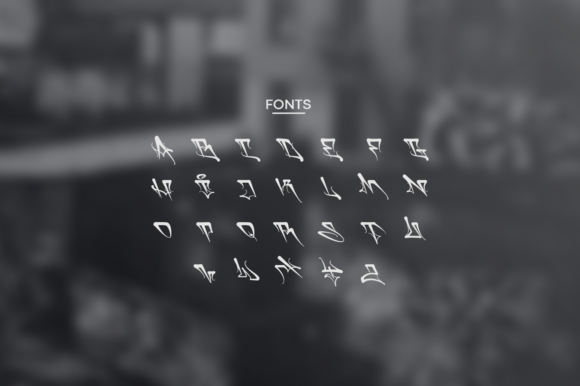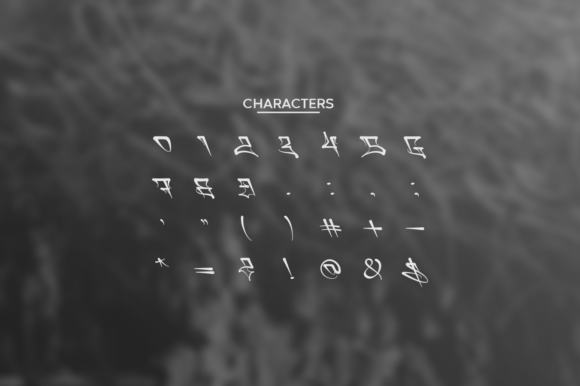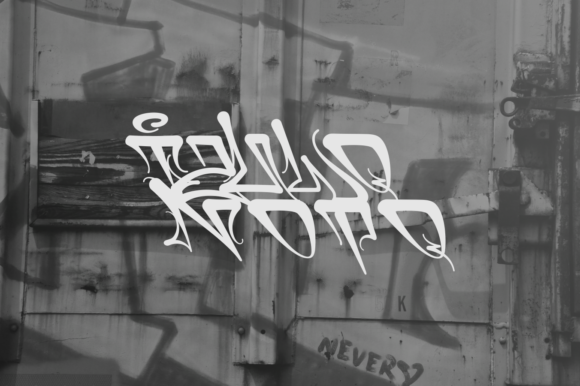
Introduction to Onif Font
Onif is an awesome, graffiti-styled display font that has a futuristic, creepy vibe.
This font is suitable for designs such as t-shirts, sportswear, logos, advertisements, clothing, and more .
Key Features of Onif Font
Why Choose Onif Font?